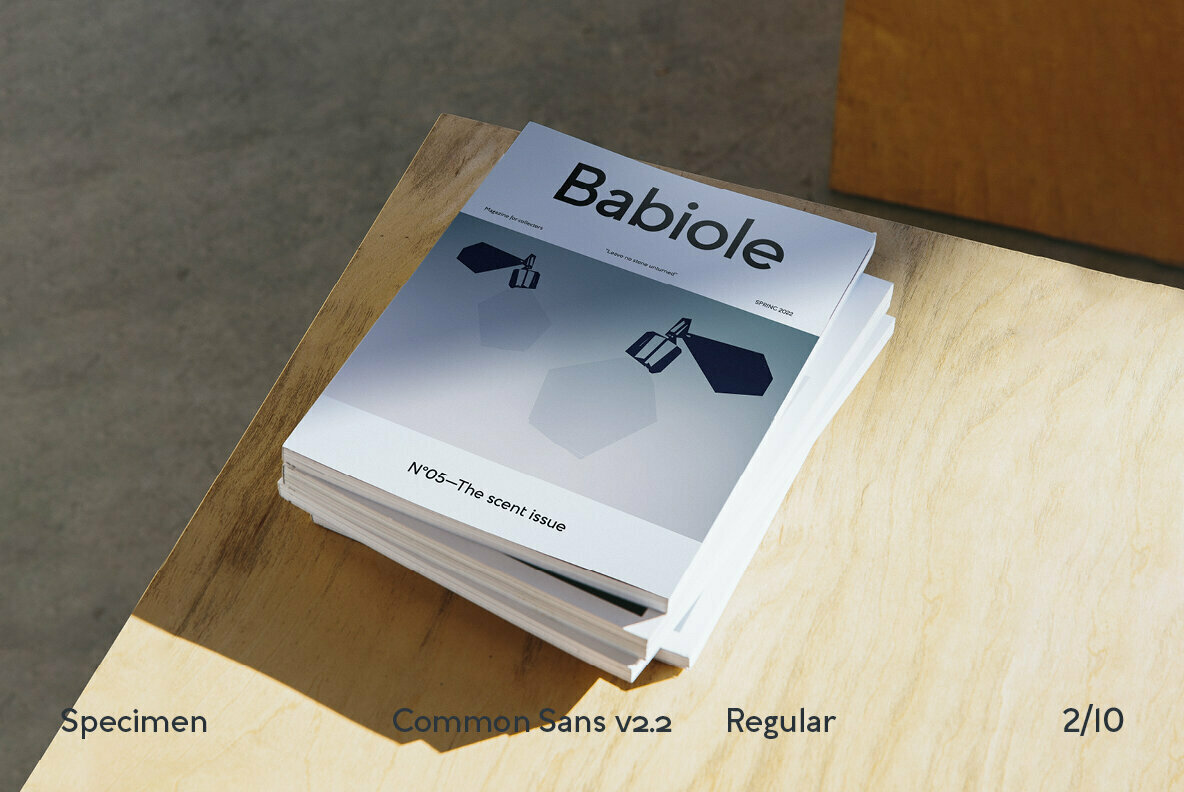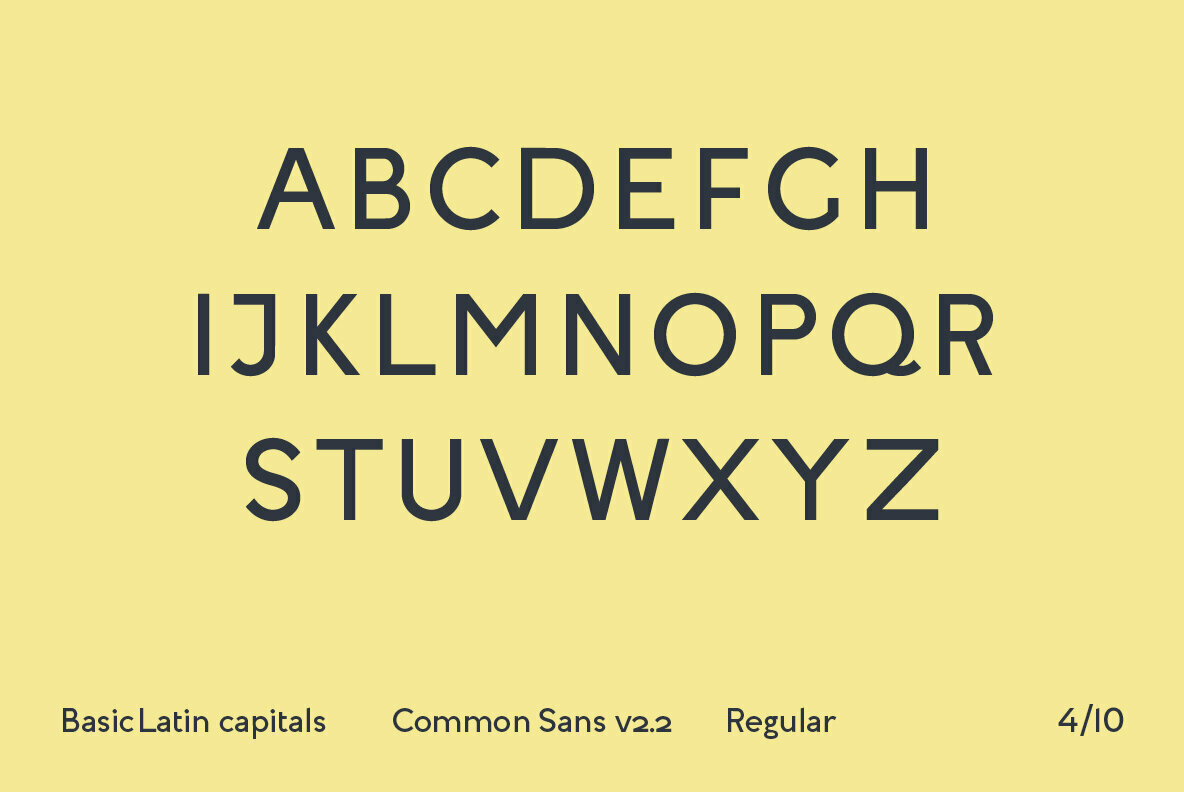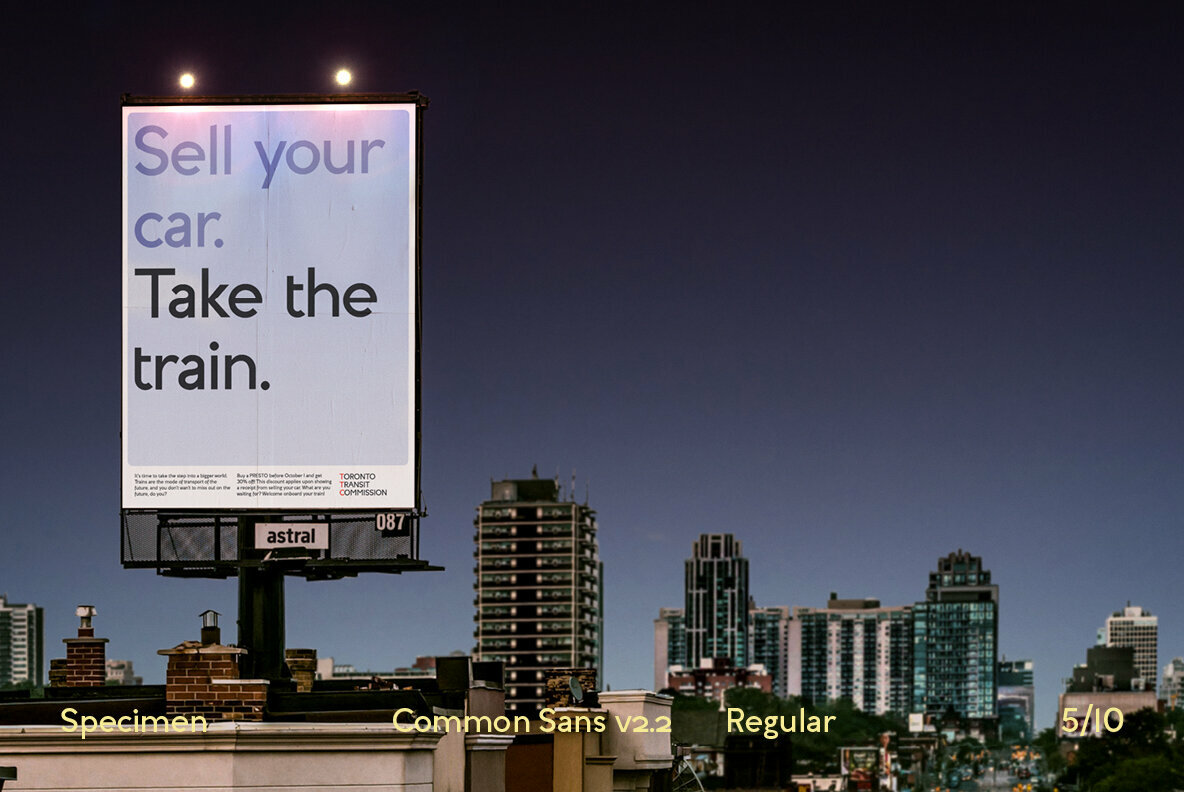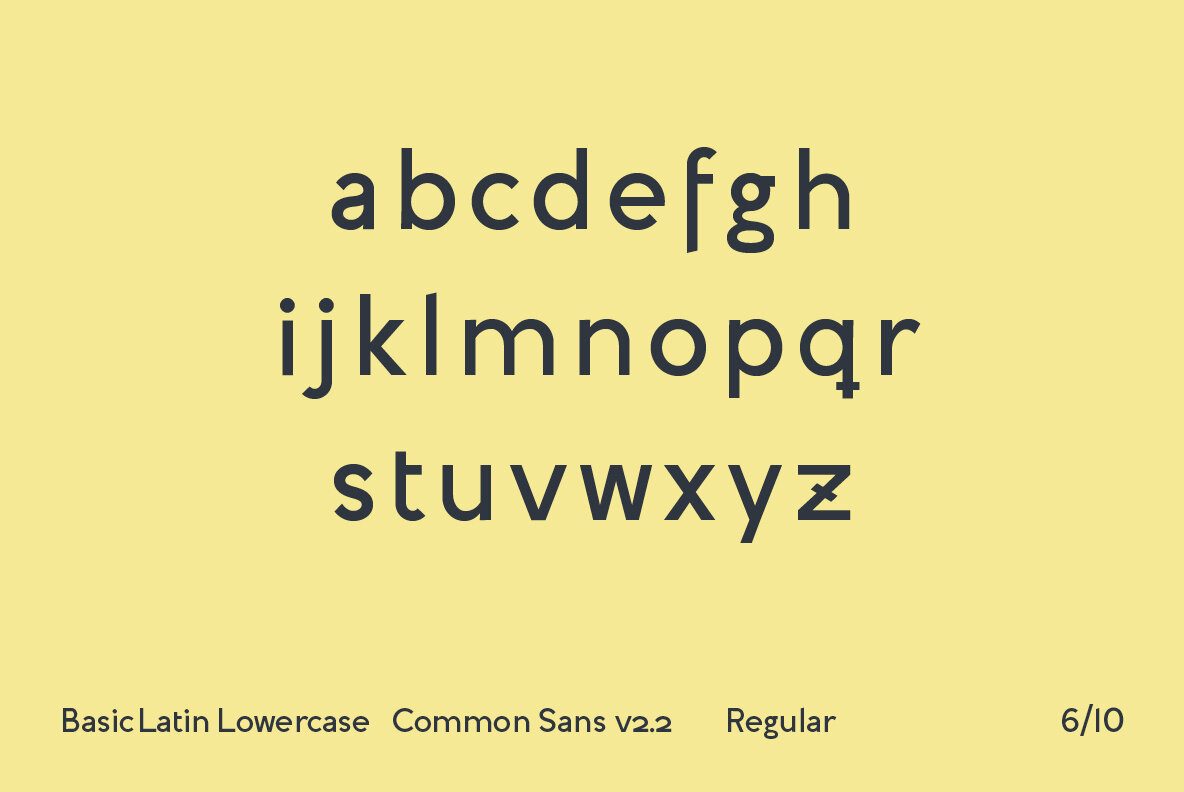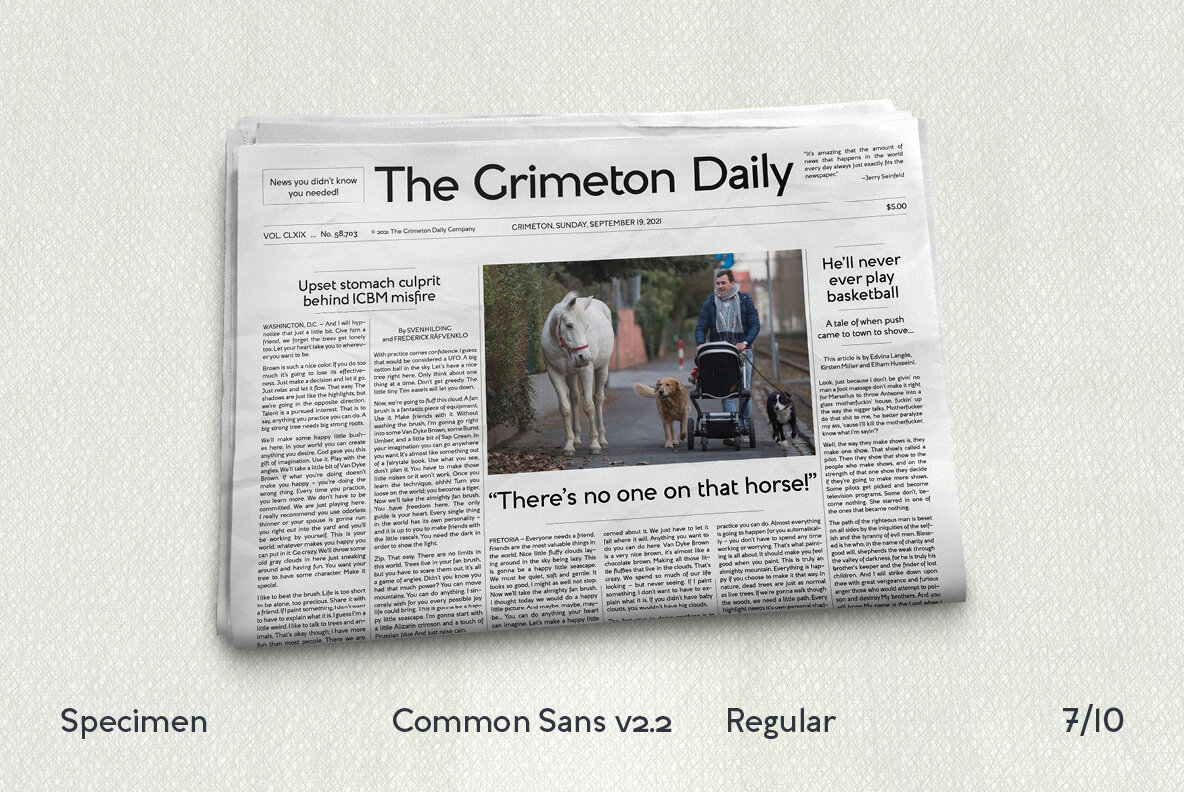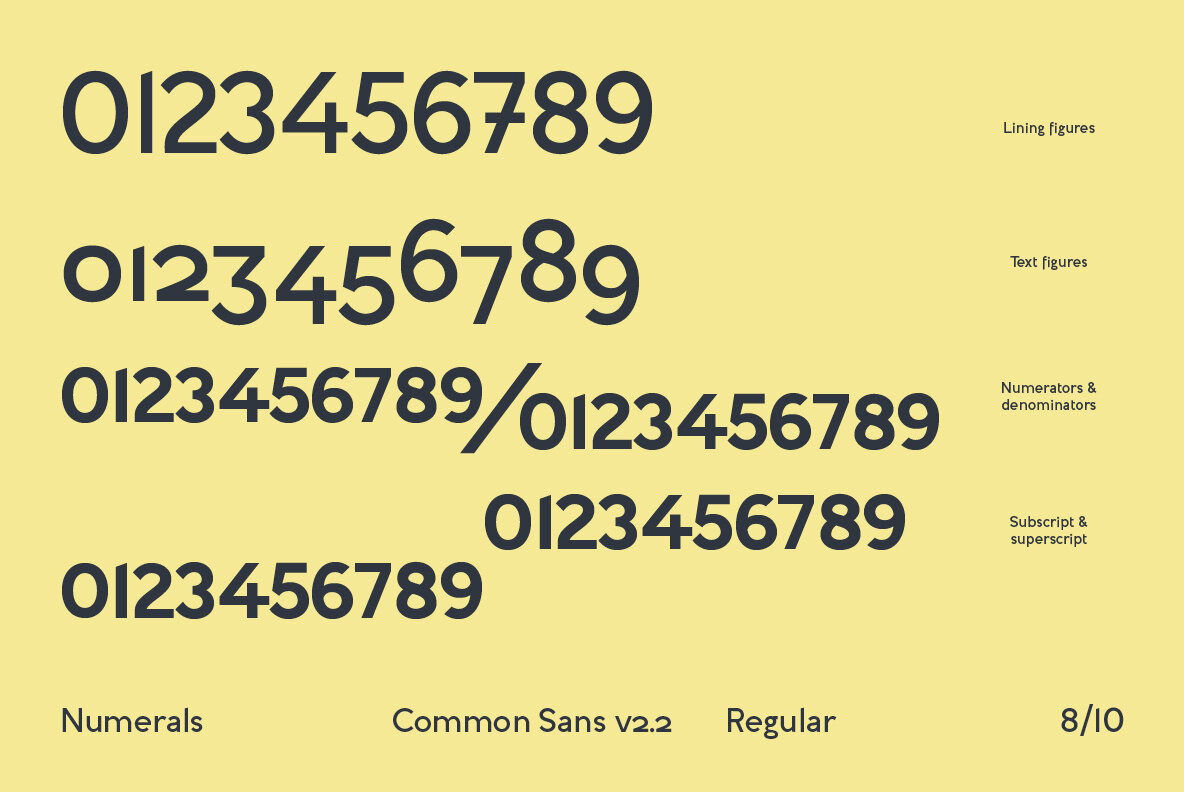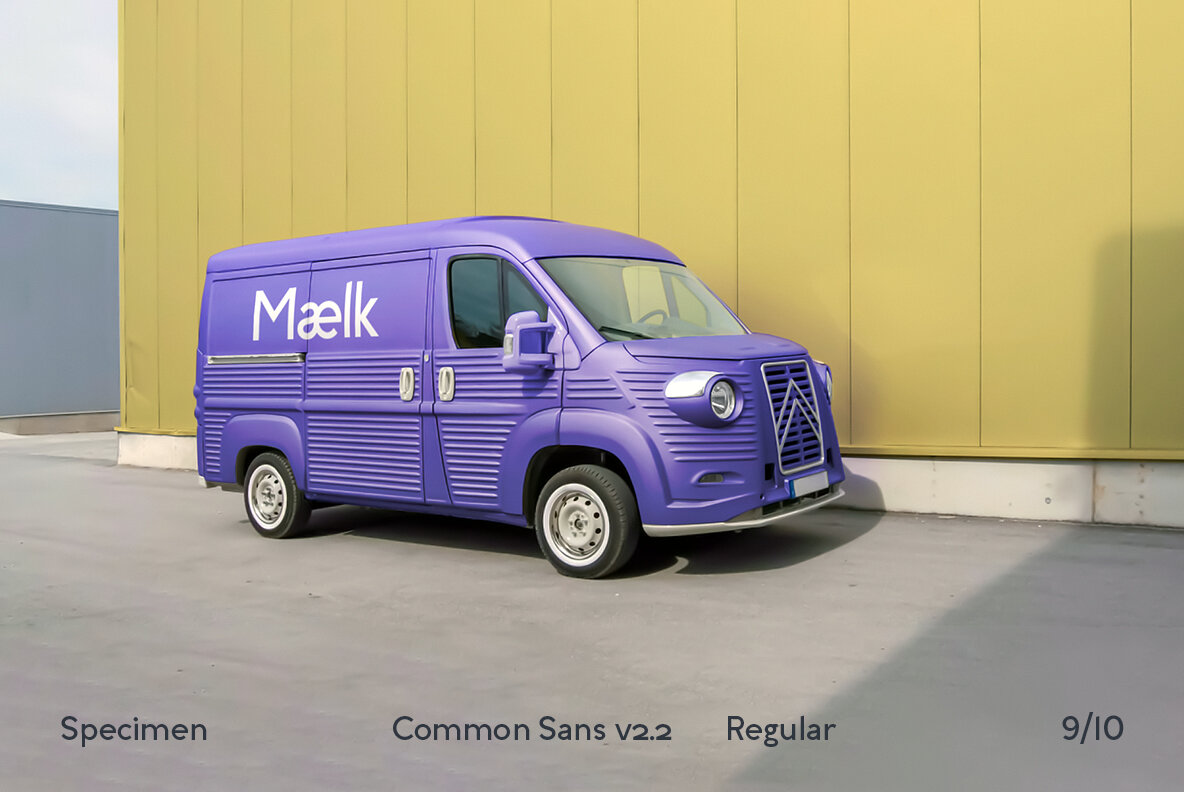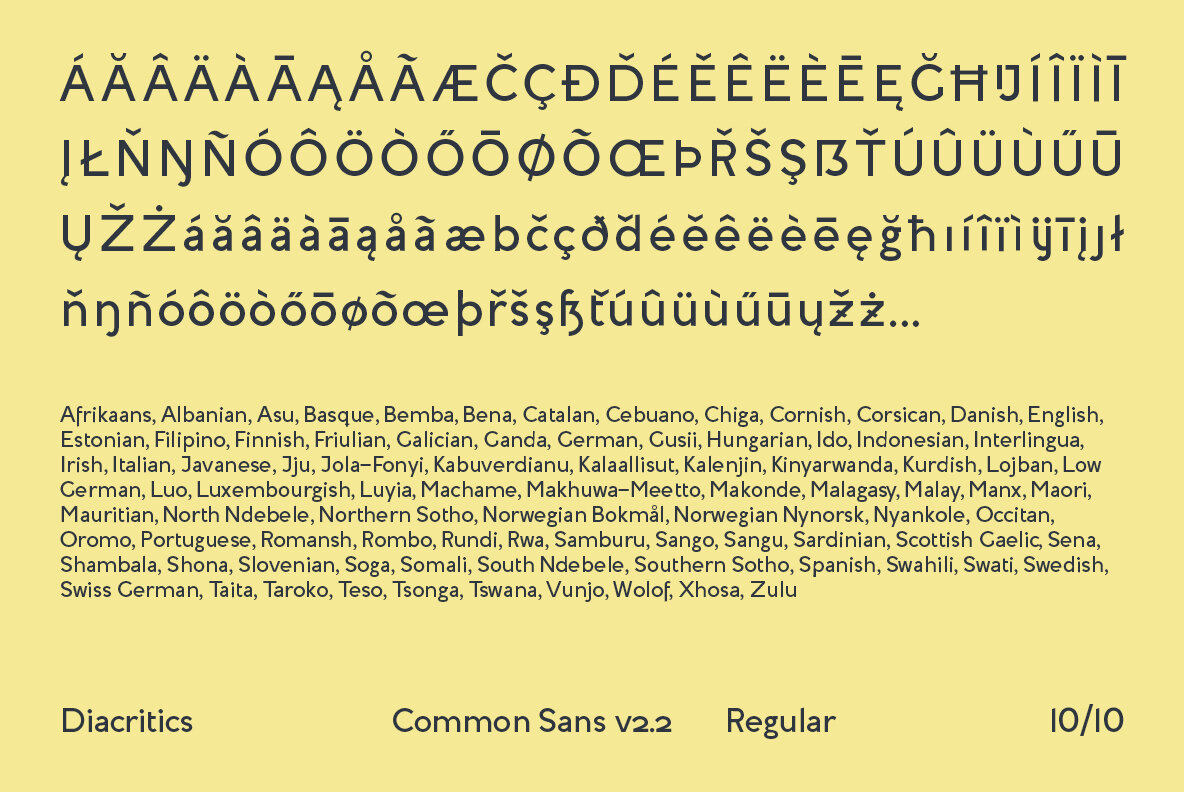
Common Sans has its origins in the Caslon Two Lines Egyptian (c:a 1816), which only has capital letterforms. Edward Johnston’s 1913 typeface for the London Underground was a key to designing a lowercase set. The Toronto subway typeface (c:a 1954) – an American Futura clone – was the other inspiration.
Certain letters deviated from their strict ancestors, borrowing shapes from my own handwriting.
It is a clear, iconic typeface in one weight. Future releases include light, bold and respective true italic fonts. Aimed at headings and larger sizes, but also suitable for website and app body text.